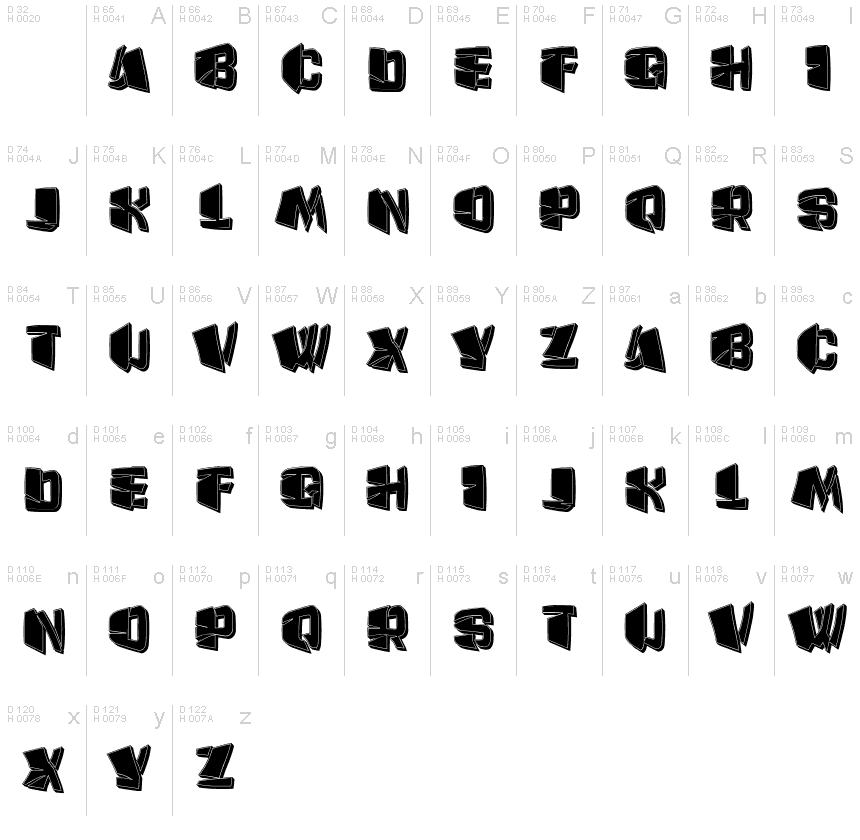
Cream Filled font is a bold distorted typeface designed by Vladimir Nikolic.
"Cream" comes in Regular, Splashed, Filled and Gradient variant!
Cream Filled